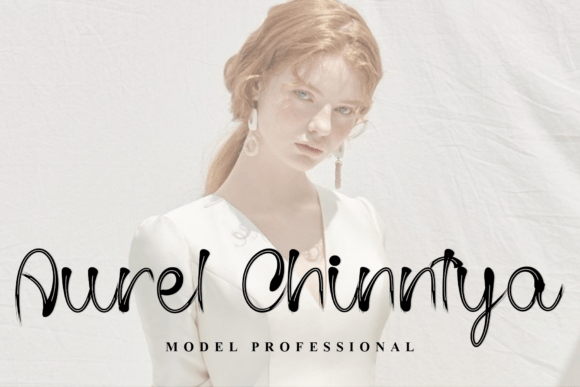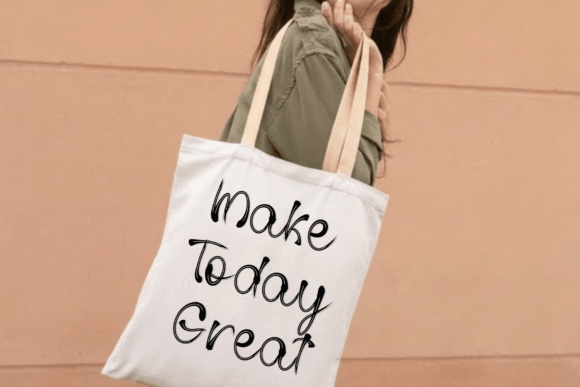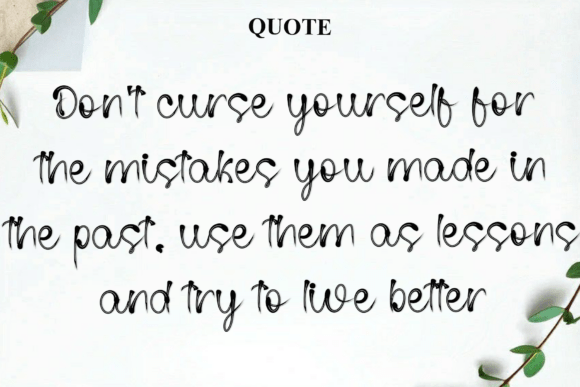
Introduction to Romantica Spring Font
Have you ever stumbled upon a design element that sparks creativity and sets your imagination on fire? For me, it’s moments like these that remind me why I love being a designer. I was browsing through a collection of fonts the other day when I came across the stunning Romantica Spring Font. Its playful, outlined letterforms with a slightly textured edge instantly caught my attention, and I knew I had to share it with fellow designers.
As a valuable design resource, the Romantica Spring Font is perfect for those looking to add a touch of whimsy and fun to their creative projects. Whether you’re working on a free download, a social media graphic, or a marketing campaign, this high-quality font is sure to bring a burst of sunshine and energy to your design.
Key Features of Romantica Spring Font
- Unique, elegant design perfect for creative projects, such as wedding invitations, greeting cards, and scrapbooking.
- High-quality font with a transparent background, ideal for use on various design elements and backgrounds.
- Features a beautiful, cursive script with intricate details, adding a touch of romance and sophistication to any project.
Honest Review: Romantica Spring Font
As a designer, I’m always on the lookout for high-quality design resources to elevate my creative projects. The Romantica Spring Font caught my eye, and I was excited to put it to the test.
What works well: ✨ The Romantica Spring Font has a beautiful, elegant aesthetic that’s perfect for spring-themed projects or any design that needs a touch of whimsy. The font is highly customizable, allowing for easy color and size adjustments. I also appreciated the transparent background option, which made it easy to layer the font over images or other design elements.
What doesn’t work so well: ⚠️ While the font is visually stunning, it’s not without its limitations. The font’s complexity can make it difficult to read at smaller sizes, and some of the characters may require additional styling to ensure proper rendering.
Overall, I’m impressed with the Romantica Spring Font as a design resource. It’s perfect for designers who want to add a touch of elegance and whimsy to their projects. With a little creativity and attention to detail, this font can be a valuable addition to any design toolbox.
- High-quality design resource
- Beautiful, elegant aesthetic
- Customizable with easy color and size adjustments
The Romantica Spring Font is perfect for a variety of creative projects, including wedding invitations, baby shower invitations, and social media graphics. Its high-quality design resource and transparent background make it easy to use in any design platform.
To get the most out of the Romantica Spring Font, experiment with different font sizes, colors, and combinations. Also, use the font in conjunction with other design elements, such as images and graphics, to create a visually appealing design.
Yes, Romantica Spring Font comes with a transparent background, making it easy to use in your design projects. This feature allows you to place the font over any background image or color without any issues.